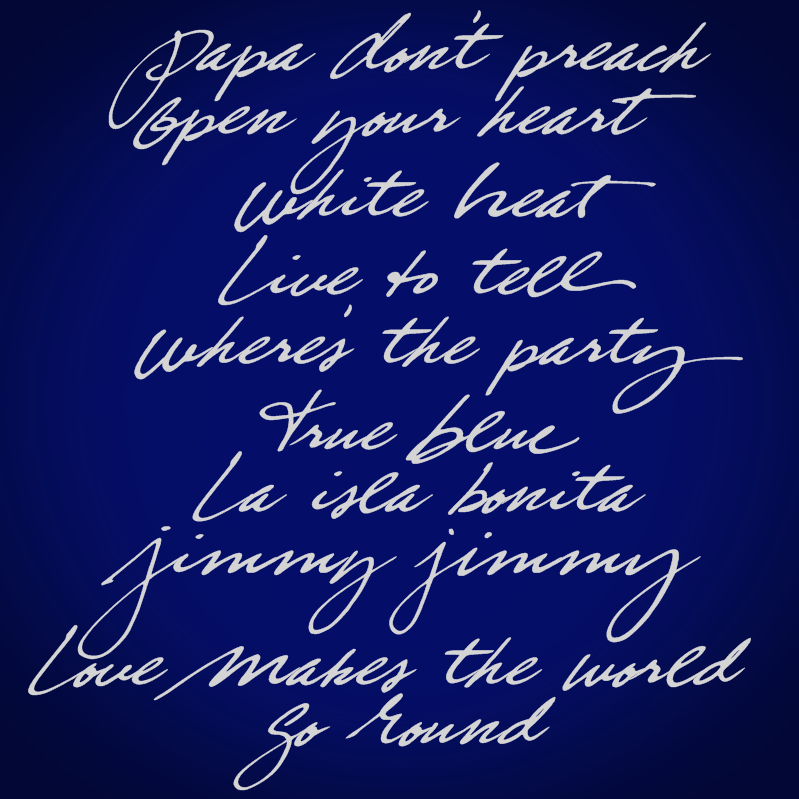
Font name: | True Blue |
Author: | xpeehdroox |
Note by xpeehdroox | |
Font created by me inspired by Madonna's True Blue album tracklist. Font with accents. |